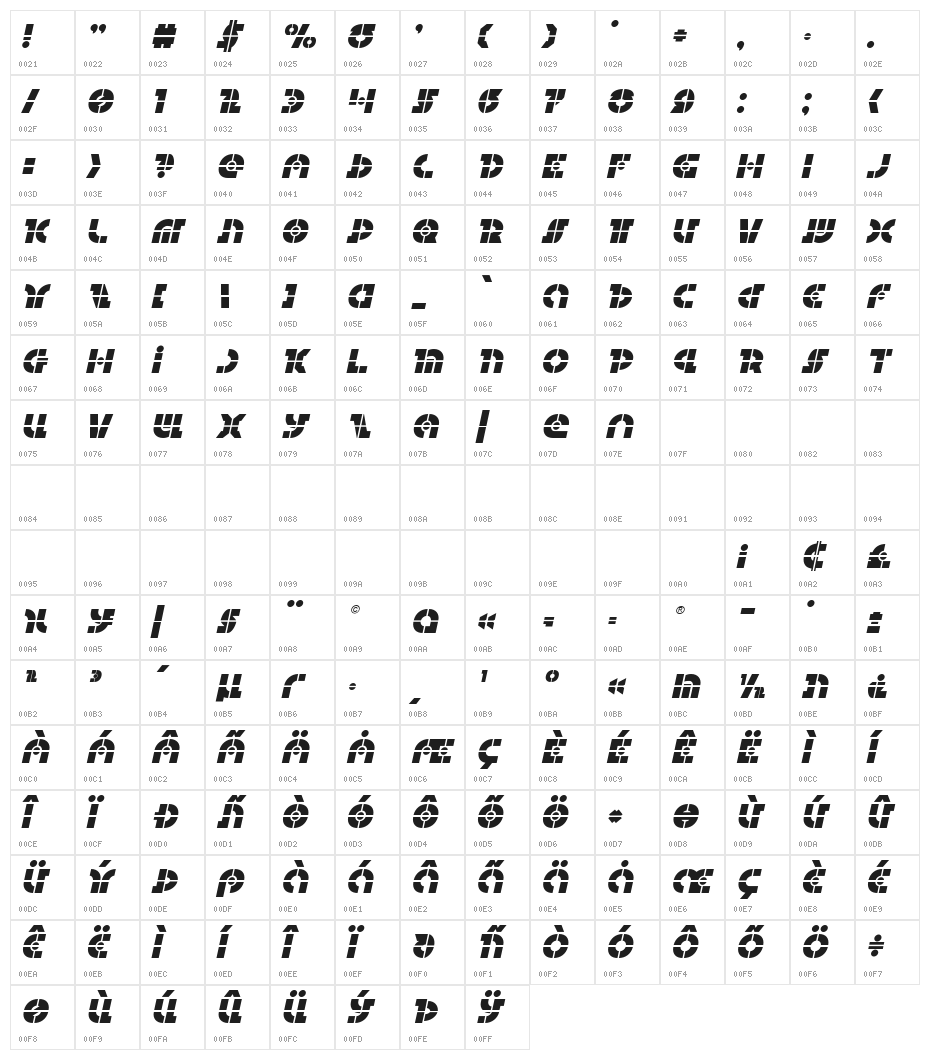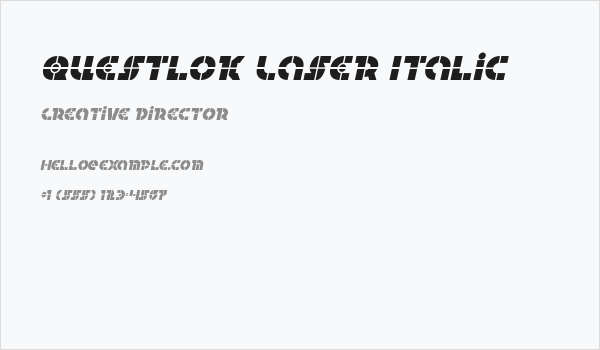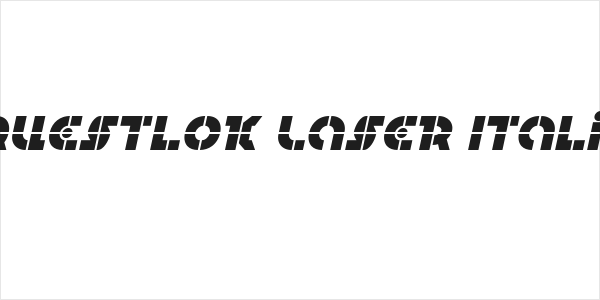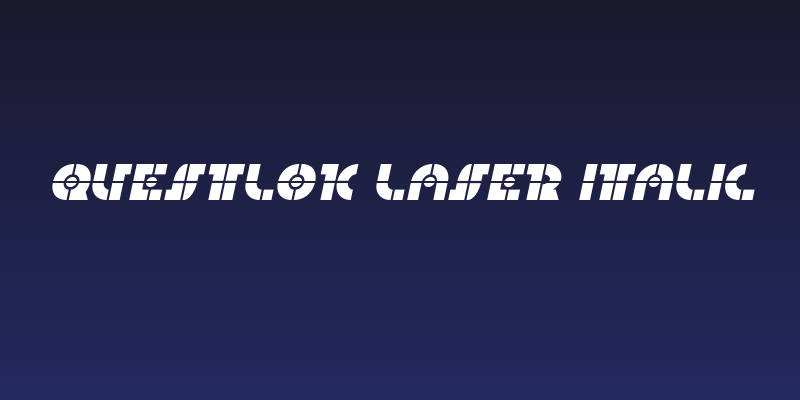
Questlok Laser Italic Font
Questlok Laser Italic Description
This font features a futuristic and geometric design with a distinct stencil-like appearance. The characters are bold and angular, incorporating circular cutouts that give it a mechanical and industrial feel. The uppercase and lowercase letters maintain a consistent style, with sharp edges and a slanted orientation that adds a dynamic, italicized effect. The numerals and special characters follow the same design principles, ensuring uniformity across all glyphs. This font's unique style makes it stand out, suitable for projects that require a modern and edgy look.
| Proposed Projects | Ideal for sci-fi themed designs, technology branding, video game titles, and modern posters. |